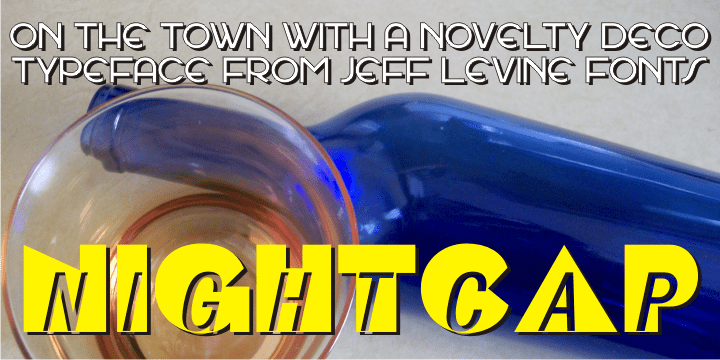
Nightcap
It's not a new idea…combining two typefaces into one design, but when it works, it makes for an interesting novelty font. Nightcap JNL is a fun typeface that can be used by itself, or along with the two original fonts the comprise it (Parkitecture JNL and Typesetter Oblique JNL) to create some wonderful retro headlines.
Nightcap JNL contains only the alphabet, numbers and basic punctuation.